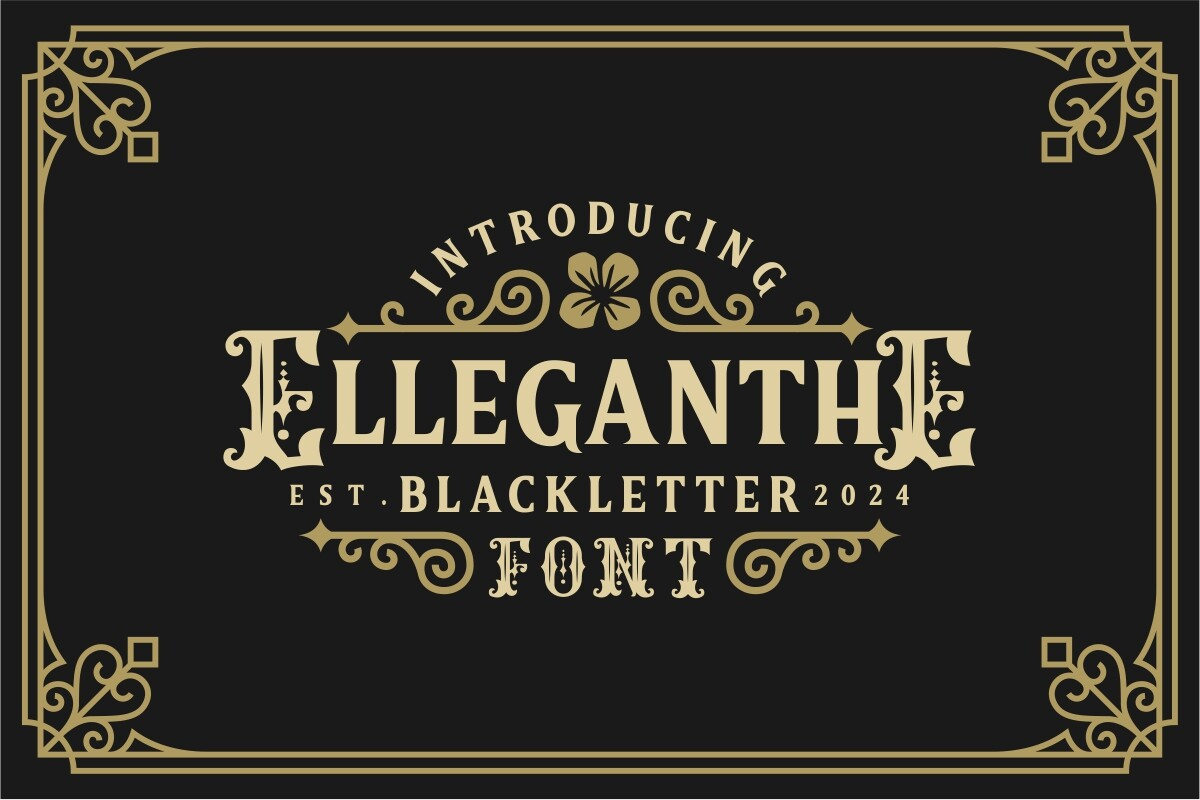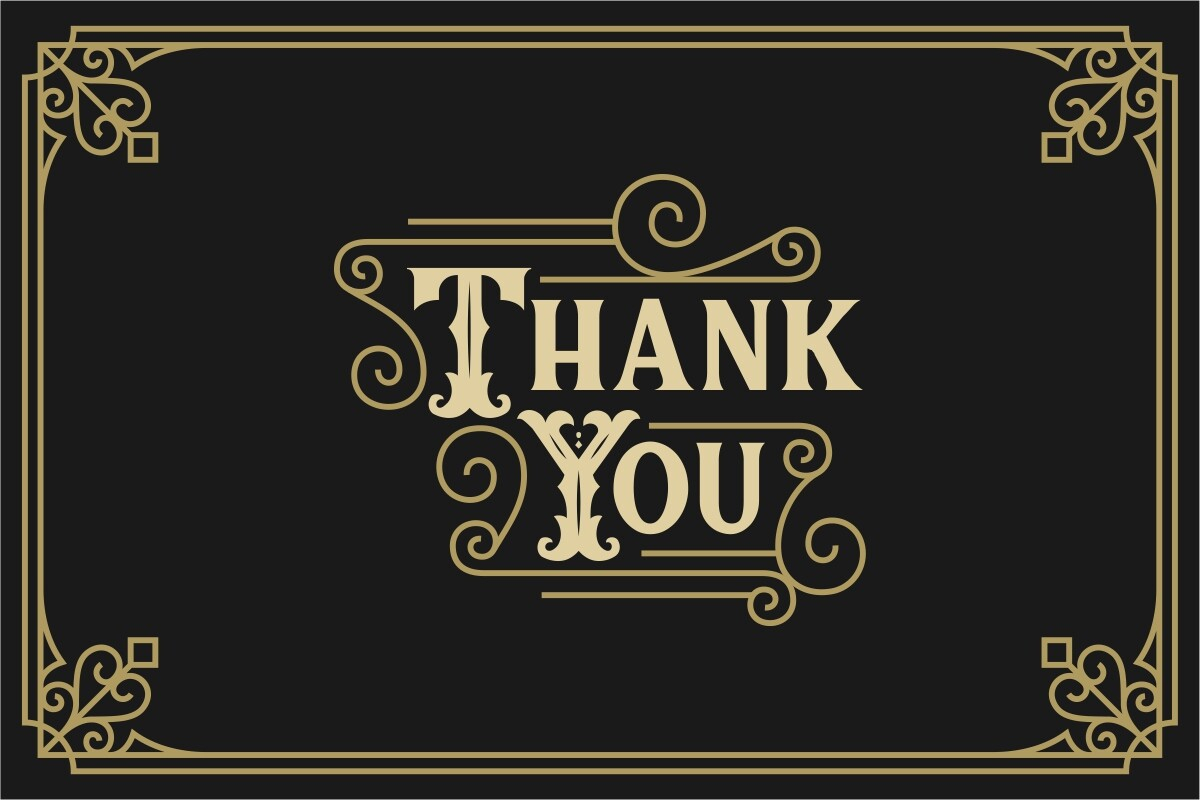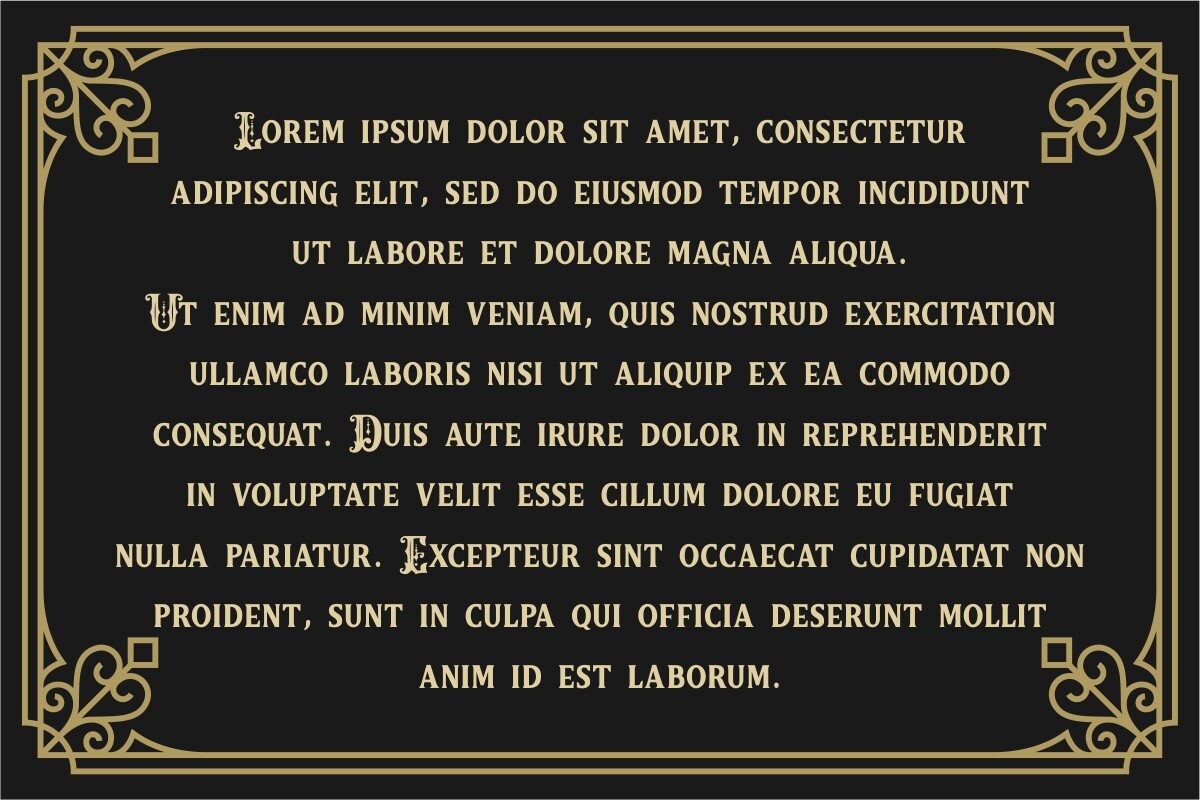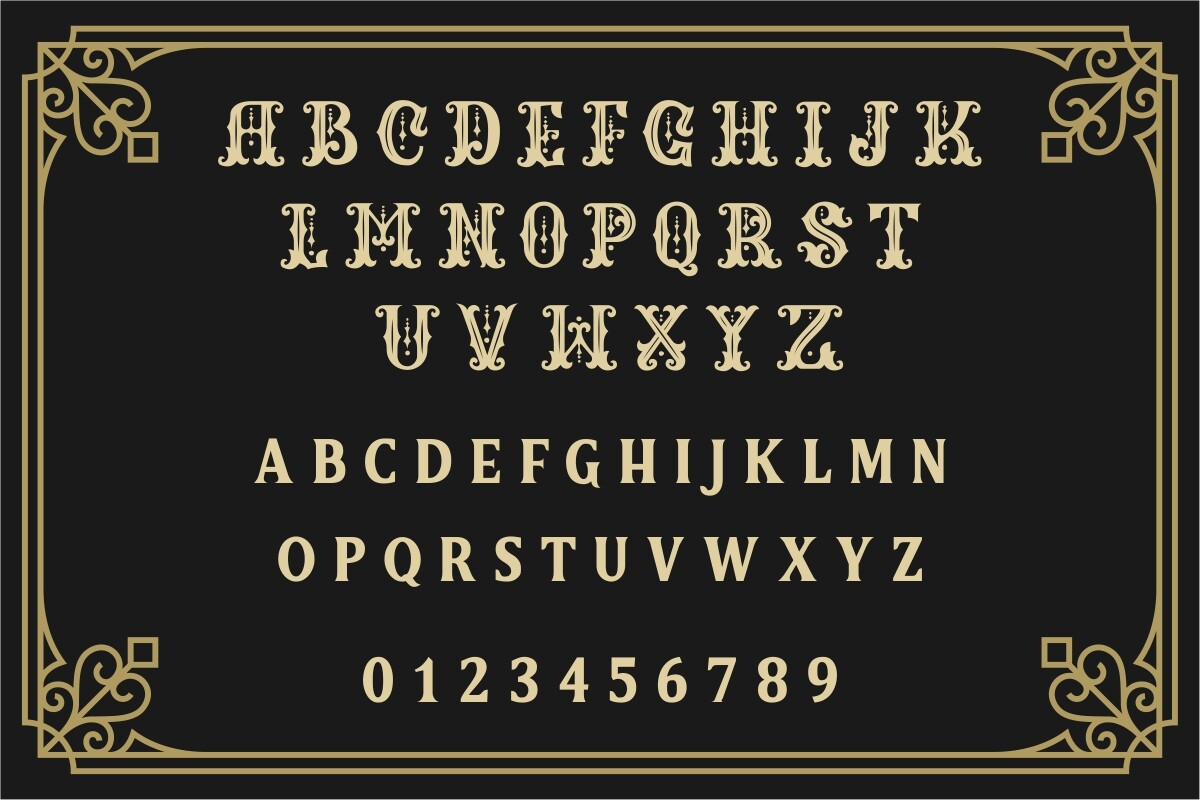
Elleganthe Font
About Elleganthe Font
Introducing “Elleganthe” a vintage font that echoes the charm of Victorian typography. With its intricate details and timeless appeal, Elleganthe adds a touch of nostalgia to your designs. Perfect for projects requiring a vintage aesthetic, this font transports your text to the elegance of the Victorian era. Whether used for invitations, labels, or any creative endeavor, Elleganthe effortlessly infuses a sense of classic sophistication into your typography. Embrace the past with this beautifully crafted vintage font.